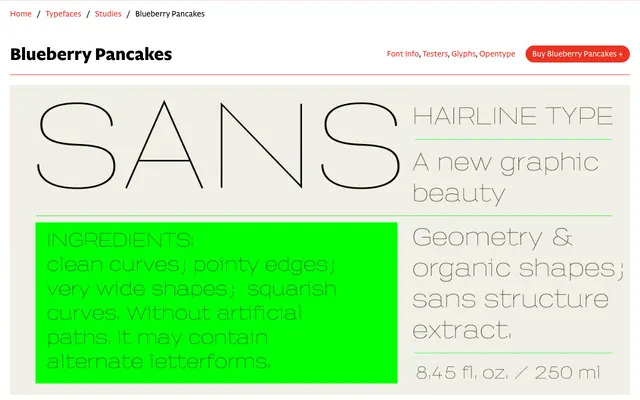
Blueberry Pancakes
CAST · Massimo Pitis, Andrea Amato – Tipiblu · 2016
Blueberry Pancakes specimen from CAST
An ultra-thin, squarish display sans designed by Massimo Pitis and finished by Tipiblu, originally drawn from single-line strokes for a 2008 Kenya Hara poster.
Conceived by Massimo Pitis from a single-line lettering exercise and later completed with a lowercase by Andrea Amato of Tipiblu, the typeface carries the marks of its origins: terminals formed by pinnacles or short strokes parallel to the stroke axis rather than the baseline, wide squarish proportions, and a 45° tail on the lowercase a. It comes in one weight only, with OpenType alternates for g, w, Q and @, alongside lining and oldstyle numerals. Suited to book covers, magazine headlines and exhibition graphics where an austere, geometric thinness is the point.
An ultra-thin, squarish display sans with near-geometric construction, single-weight only and explicitly conceived for headlines rather than text setting, placing it firmly in the display category.